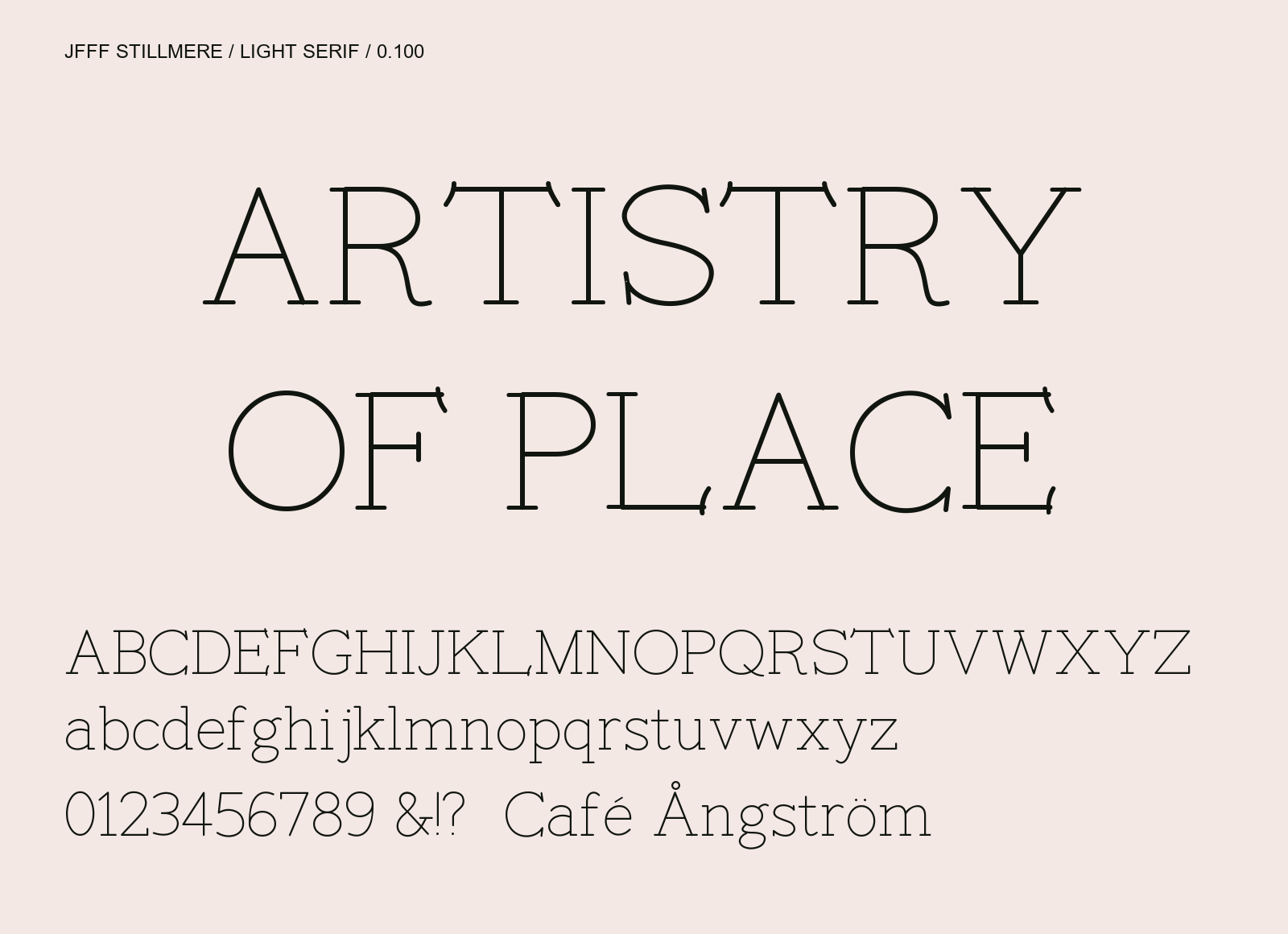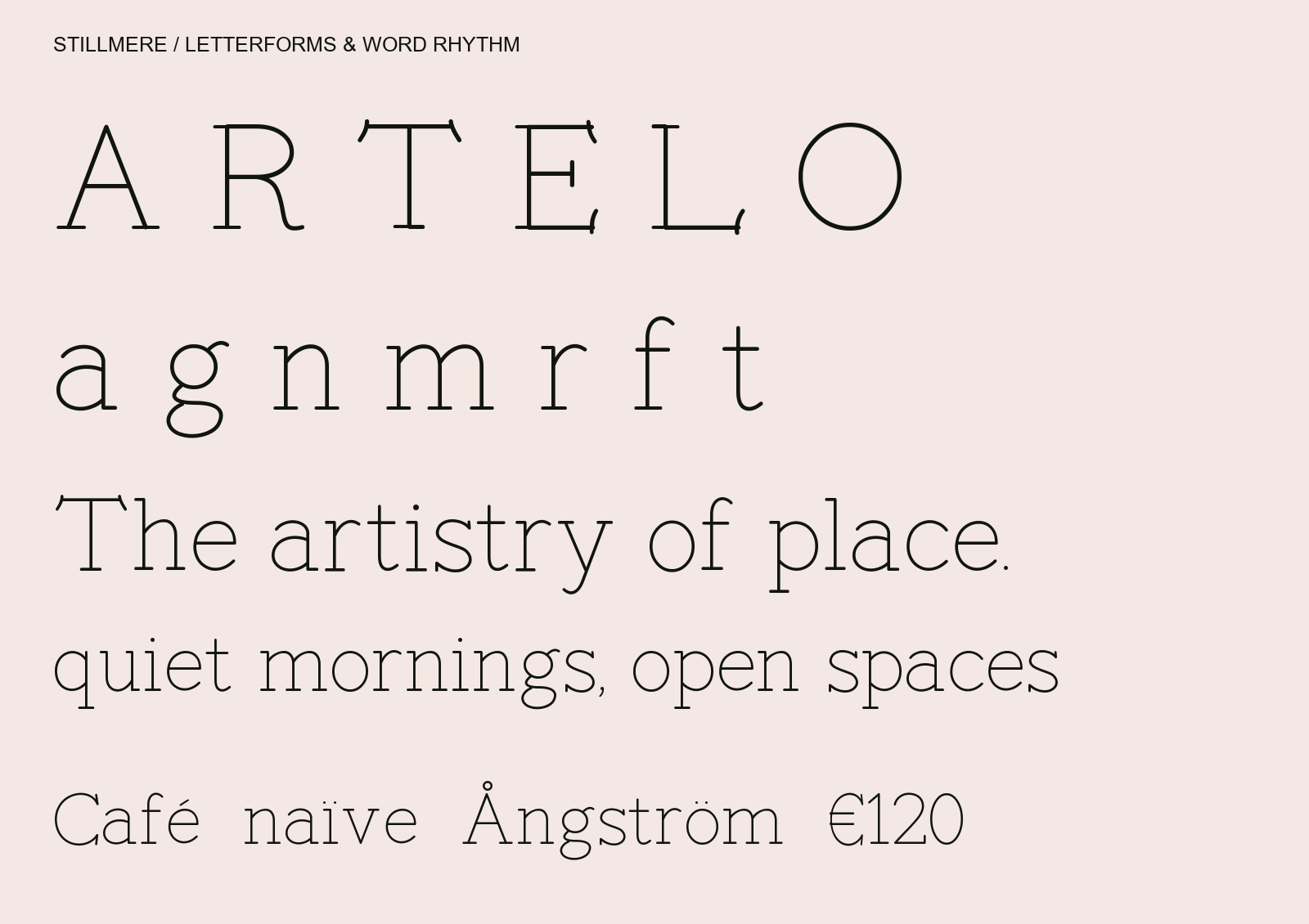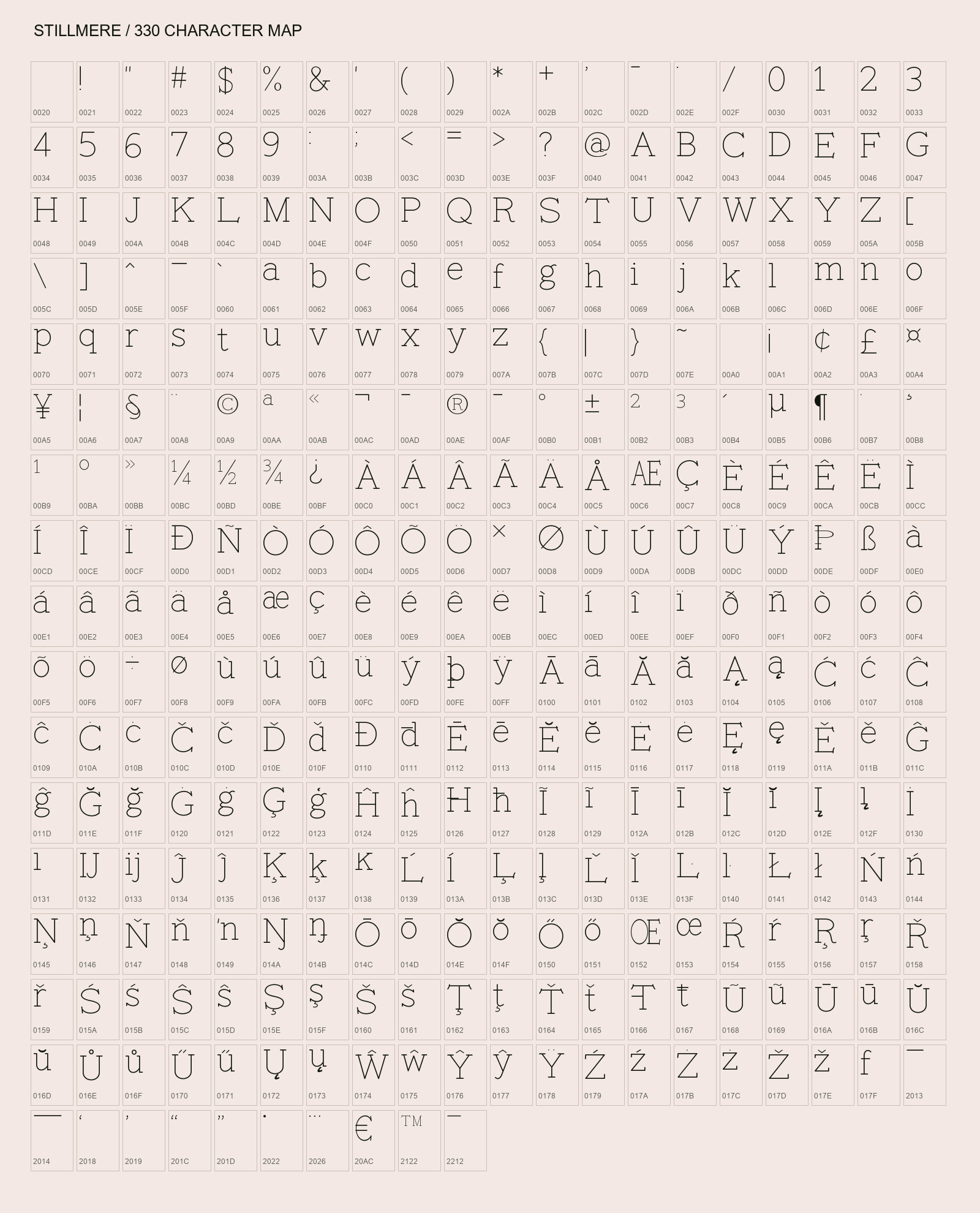
Place Editorial Study
Stillmere: ARTISTRY OF PLACE, a light serif with open counters and softly curved terminals.
Quiet lines, open spaces. Stillmere is a light, low-contrast serif with generous counters, short serifs, gently lifted terminals and a flowing R leg. The lowercase and extended repertoire are newly drawn to share the proportions of its reference-inspired capitals. Designed for titles, posters and larger editorial settings. Regular style, initial release 0.100. Includes 330 encoded characters / 331 glyphs across Basic Latin, Latin-1, Latin Extended-A and selected symbols; spaces are included in the count. Hangul and independent combining marks are not included. Released under the SIL Open Font License 1.1.